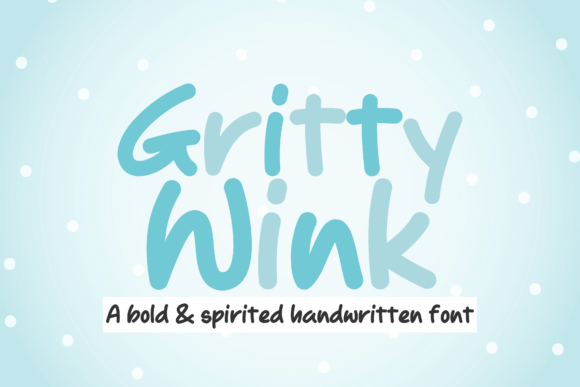
Grittywink Font: The Ultimate Guide to a Bold and Confident Handwritten Font
In the world of typography, fonts play a crucial role in conveying the tone and personality of a design. Among the numerous fonts available, the Grittywink font stands out for its bold, confident, and unique style. This comprehensive article will explore the features, benefits, and uses of the Grittywink font, providing you with an in-depth understanding of this exceptional handwritten font.
What is Grittywink Font?
Grittywink is a bold and confident handwritten font characterized by its clean yet natural and unique style. The font features both uppercase and lowercase letters, making it versatile for various design applications. Its distinctiveness lies in its ability to add charm and personality to designs without appearing overly polished.
Key Features of Grittywink Font
- Bold and Confident: The Grittywink font exudes confidence and boldness, making it perfect for designs that require a statement.
- Clean and Natural Style: The font’s clean and natural style ensures that it remains legible and visually appealing.
- Uppercase and Lowercase Letters: The inclusion of both uppercase and lowercase letters provides flexibility in design.
- Unique and Distinctive: The font’s unique style sets it apart from other handwritten fonts, making it ideal for designs that need to stand out.
Uses of Grittywink Font
The Grittywink font is incredibly versatile and can be used in a variety of design applications, including:
- Greeting Cards: Add a personal touch to your greeting cards with the Grittywink font’s charming and unique style.
- Craft Projects: The font’s natural and clean style makes it perfect for craft projects, such as DIY signs, posters, and more.
- Logos: Create a bold and confident logo for your business or brand with the Grittywink font.
- Social Media Posts: Use the Grittywink font to add personality and charm to your social media posts, making them stand out in a crowded feed.
Benefits of Using Grittywink Font
The Grittywink font offers several benefits, including:
- Improved Readability: The font’s clean and natural style ensures that your text remains readable, even at smaller sizes.
- Enhanced Visual Appeal: The Grittywink font’s unique style adds visual interest to your designs, making them more engaging and attention-grabbing.
- Flexibility: The font’s versatility makes it suitable for a wide range of design applications.
- Personality: The Grittywink font adds a touch of personality to your designs, helping to convey your brand’s tone and voice.
- What is the Grittywink font? The Grittywink font is a bold and confident handwritten font with a clean yet natural and unique style.
In conclusion, the Grittywink font is a unique and versatile handwritten font that can add charm and personality to your designs. Its bold and confident style makes it perfect for a wide range of applications, from greeting cards to logos and social media posts. By understanding the features, benefits, and uses of the Grittywink font, you can take your designs to the next level and create visually appealing and engaging content.